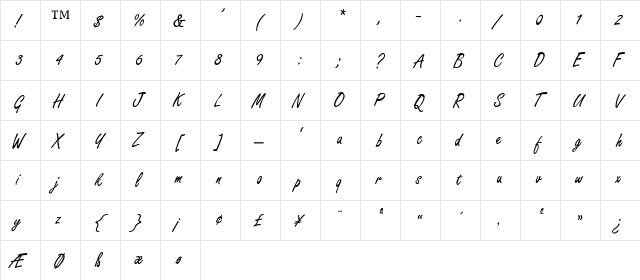
FreestyleScript-ExtraLight Regular Font Preview
FreestyleScript-ExtraLight Regular
Design Context for FreestyleScript-ExtraLight Typeface
FreestyleScript-ExtraLight brings a calligraphic fluidity to the page — its connecting strokes and expressive curves give it an unmistakably human quality. The delicate stroke weight brings airiness and refinement to layouts.
Font Pairing: Combine FreestyleScript-ExtraLight with a simple geometric sans for maximum contrast — the tension between flowing curves and clean structure is a classic typographic pairing.
Pro Tip: Use FreestyleScript-ExtraLight for short runs of text — names, titles, or taglines. Extended body copy in script faces tires the eye quickly.